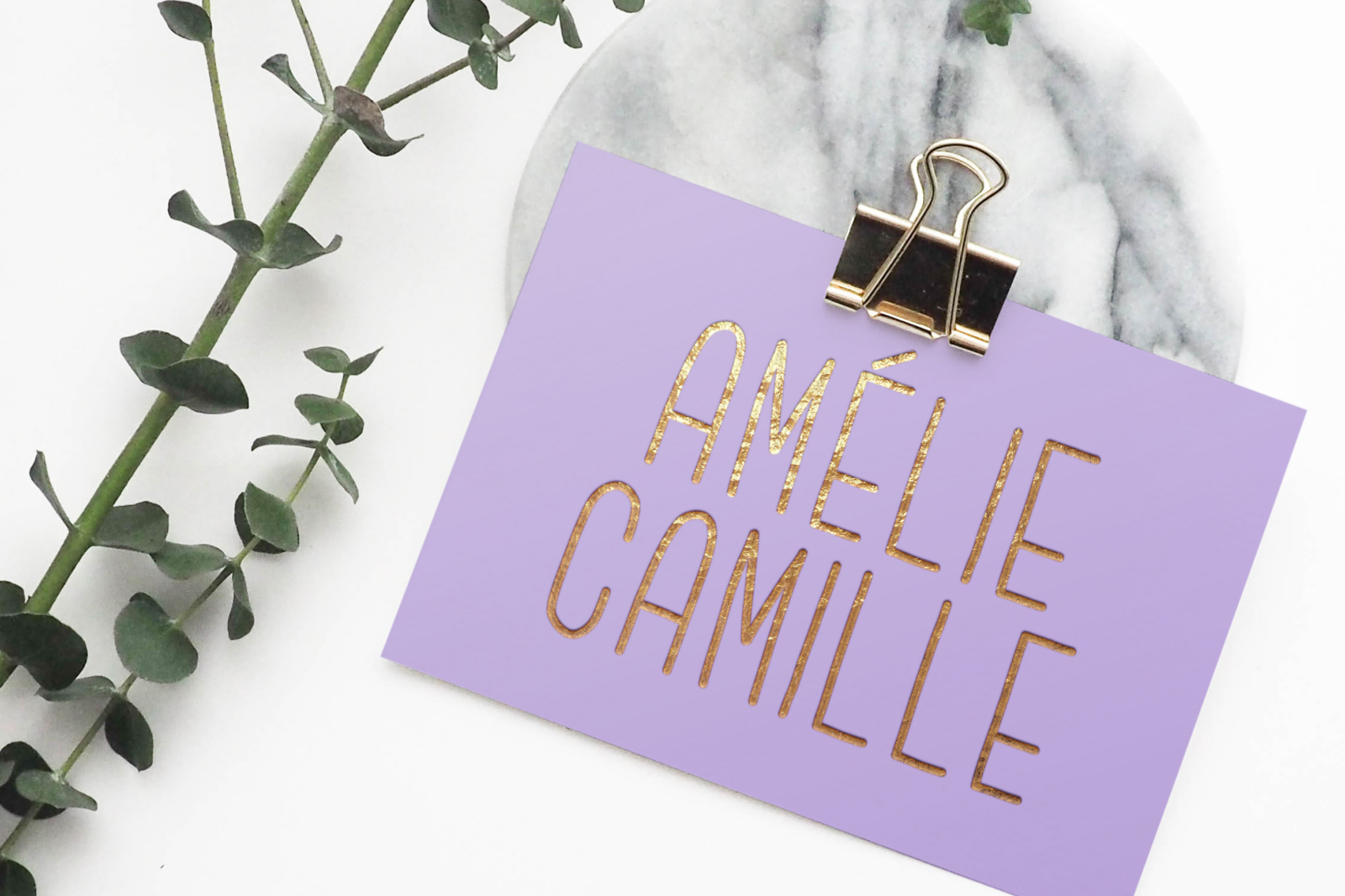
The Amélie Camille Font: A Hidden Gem for Creative Projects
I’ll never forget the time I was working on a branding project for a charming French bakery. My client wanted a font that would evoke the feeling of a quaint Parisian café, but I was struggling to find the perfect fit. That’s when I stumbled upon the Amélie Camille font, and it instantly became the star of the show. In this article, I’ll share my love for this stunning font, its features, and how to make the most of it in your creative projects.
A Personal Review: What I Love About Amélie Camille
Amélie Camille is a neat and legible font that adds a personal touch to any project. Here are some things I love about it:
• ✨ Unique character: Amélie Camille has a distinct personality that sets it apart from other fonts.
• ✅ Legibility: This font is easy to read, even at small sizes, making it perfect for body text.
• ✅ Versatility: Amélie Camille works well for a wide range of projects, from branding and advertising to crafting and DIY tutorials.
• ✨ Elegant lines: The font’s elegant lines and curves give it a sophisticated feel.
While Amélie Camille is an excellent font, it’s not perfect. Here are a few things to keep in mind:
• 🤔 Limited availability of stylistic alternates: Compared to some other fonts, Amélie Camille has limited stylistic alternates, which might limit your design options.
• ⚠️ Not ideal for very large or very small text: While Amélie Camille is legible at small sizes, it may not be the best choice for very large or very small text, as it can lose some of its elegance.
The Story Behind Amélie Camille
Amélie Camille was designed by a talented type designer who wanted to create a font that would evoke the feeling of a charming French town. The font’s elegant lines and curves are inspired by the beautiful architecture and typography of 18th-century France. The designer aimed to create a font that would be both elegant and legible, making it perfect for a wide range of creative projects.
What is Amélie Camille? Amélie Camille is a legible and elegant font with a unique character, perfect for creative projects.
Is Amélie Camille suitable for body text? Yes, Amélie Camille is legible at small sizes, making it suitable for body text.
Is Amélie Camille available in different weights? Amélie Camille may be available in different weights, but this depends on the specific font version and foundry.